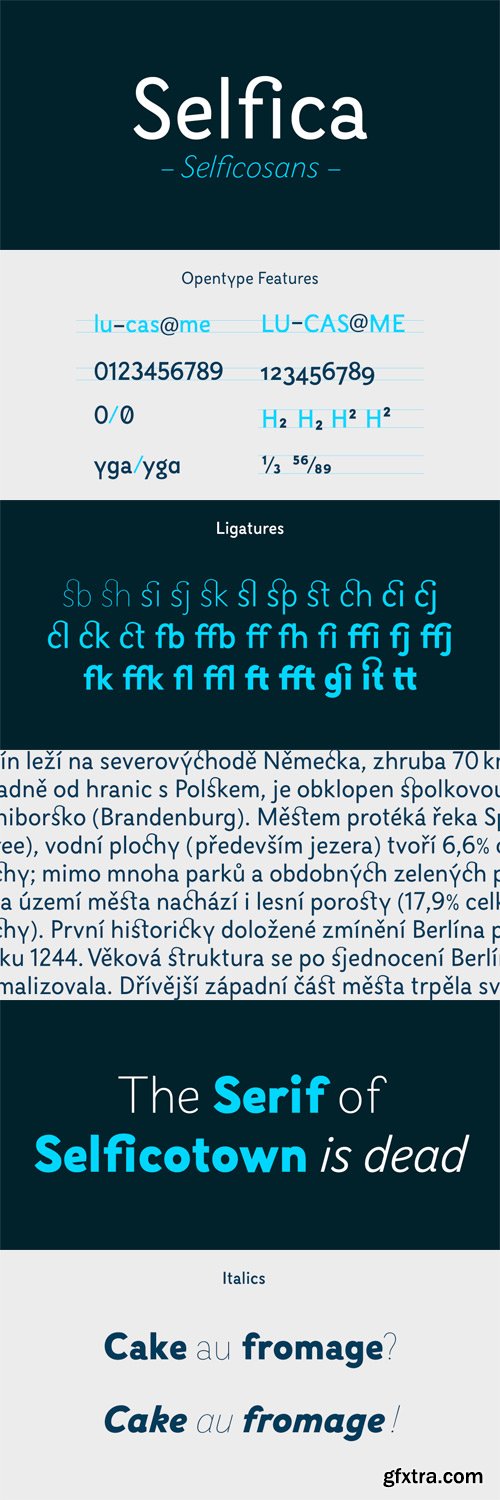
Selfica Font Family
Selfica is the sans-serif version of the Selfico designed by Nico Inosanto in 2012. The fonts have a semi-condensed geometric forms and conserve a little contrast with the Selfico. The large number of ligatures is a good feature to make an original and creative layout. The range of weights provides flexibility for texts and titles. The special «g» of the original Selfico is available as stylistic alternate. The Selfica consist in a 14 styles family: Hairline, Thin, Light, Regular, Medium, Bold, Black and their Italic. The fonts have an extended characters set to support Central, Eastern and Western European languages.